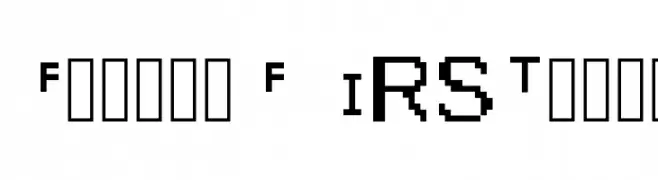
A bold, decorative font with playful circular embellishments and vintage flair.
A whimsical, vine-inspired font with elegant, thin lines and playful curves.
A music-themed decorative font with elements of musical notation.
A pixelated, retro-style font with a bold, digital appearance.
A bold, geometric font with an industrial, stencil-like design.
A bold, flowing script font with interconnected letters and a strong visual impact.
A rugged, distressed font with a vintage western feel.
A playful, hollow outlined font with smooth, rounded edges and consistent stroke width.